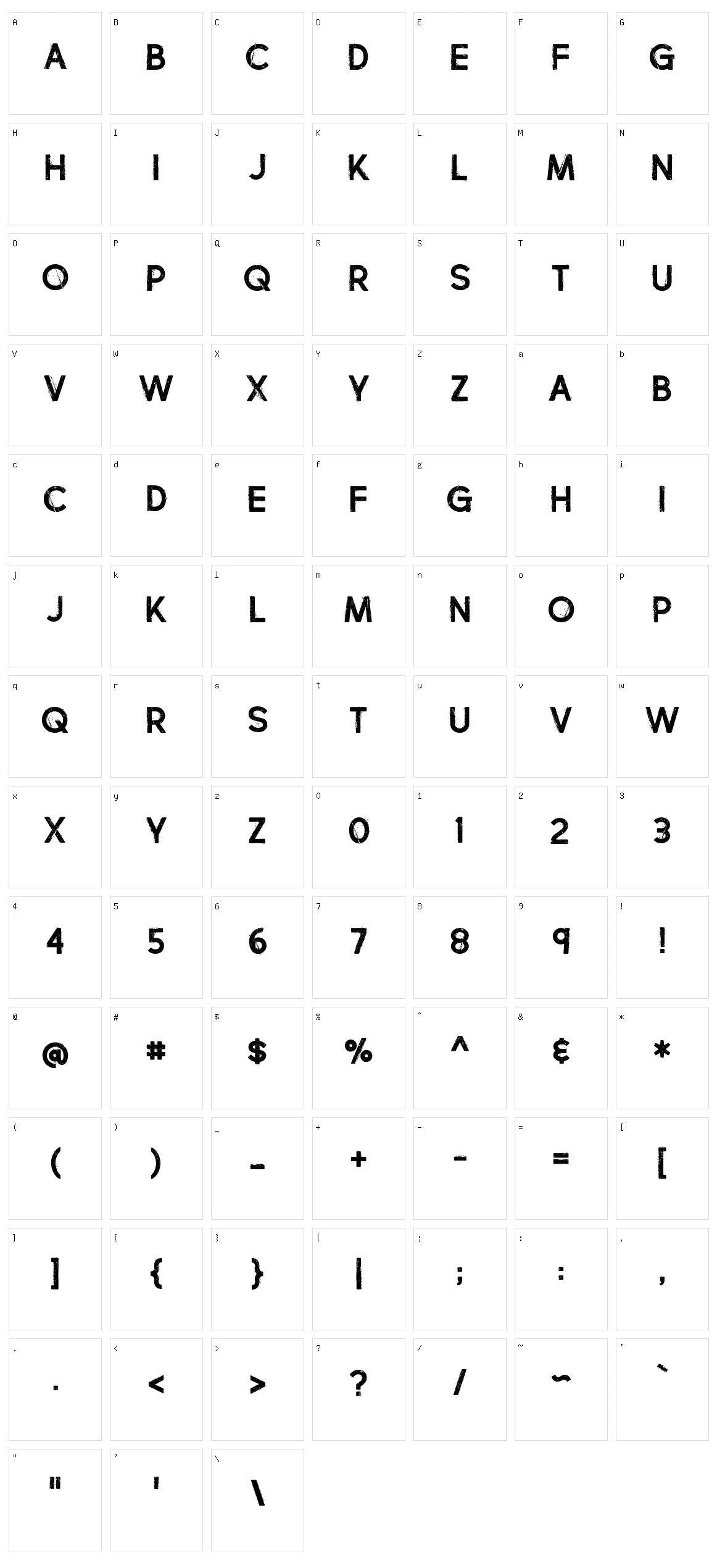
The free font Charbroil is carefully designed by Brittney Murphy Design, showcasing a thoughtful balance of creativity and usability and falls under the Eroded font style. When you download the ZIP file, it contains only 389.8 KB of font files, making it lightweight and quick to download. Please review the license details below to understand permitted usage and distribution rights. If license information is not available, we recommend using this font for personal projects only or contacting the author directly for commercial usage permissions.